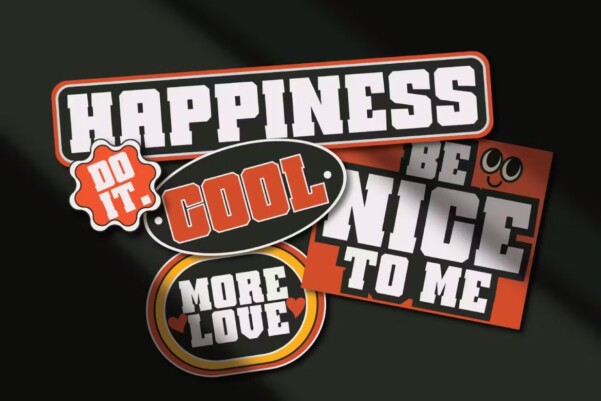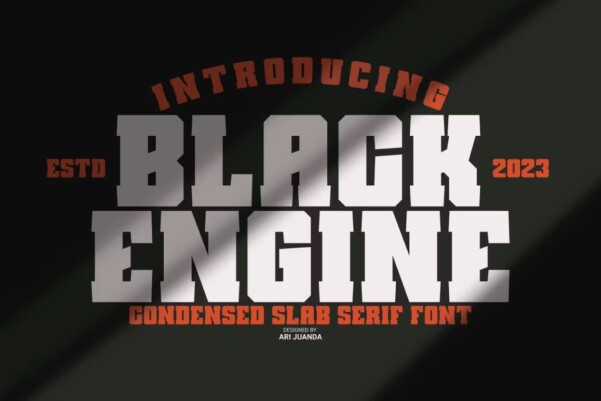
Black Engine Font
Black Engine Font, condensed slab serif font is vintage-inspired with a touch of classic style but gives it a tough feel. This font is built on a solid foundation, strong visuals, vintage motion, and a modern minimalist style. Black Engine is perfect for Jersey, athletics, posters, branding projects, Logo design, Clothing Branding, product packaging, for magazine titles. for something sports themed, album title, etc